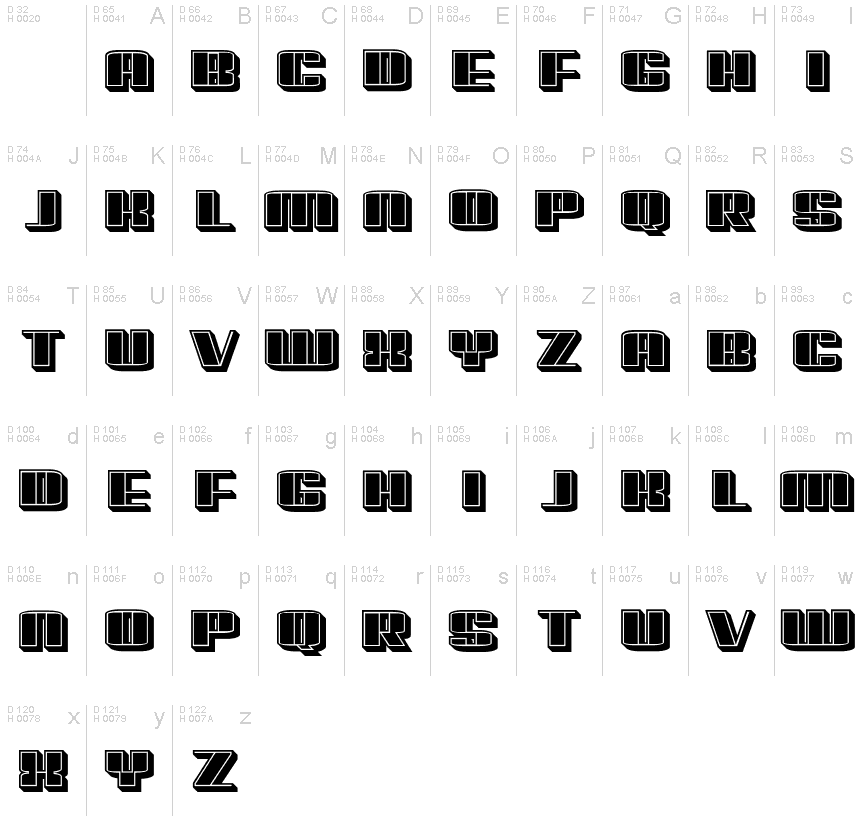
Possession Filled Regular
Possession Filled Regular, designed by Vladimir Nikolic, is a captivating display font that adds depth and dimension to any project. With its 3D style and extra-bold weight, this font commands attention and creates a powerful visual impact. Its expanded width further enhances its presence, making it perfect for eye-catching headlines, logos, and signage. Whether you're designing movie posters or creating immersive 3D graphics, Possession Filled Regular is the ideal choice to bring your projects to life with its bold and dynamic aesthetics.
It comes in Regular, Filled, Book, Book Italic version.